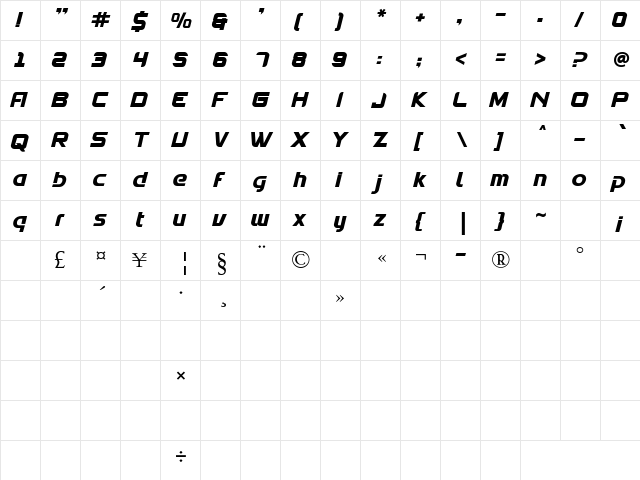
Spantaran Regular
Design Context for Spantaran Typeface
Spantaran is a composed and adaptable typeface that performs quietly and consistently across a wide range of design contexts.